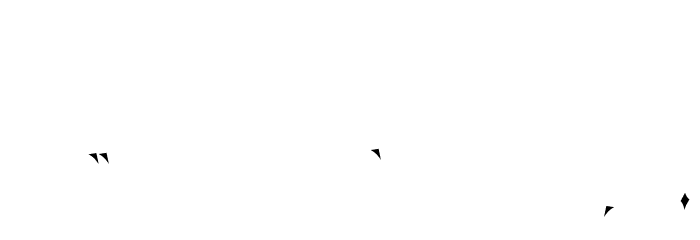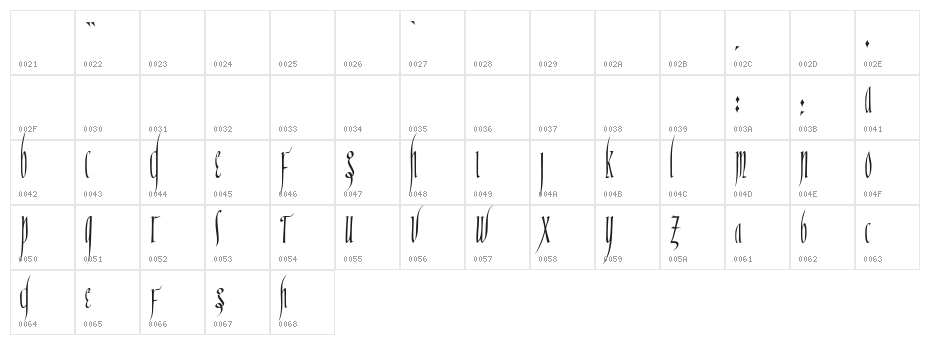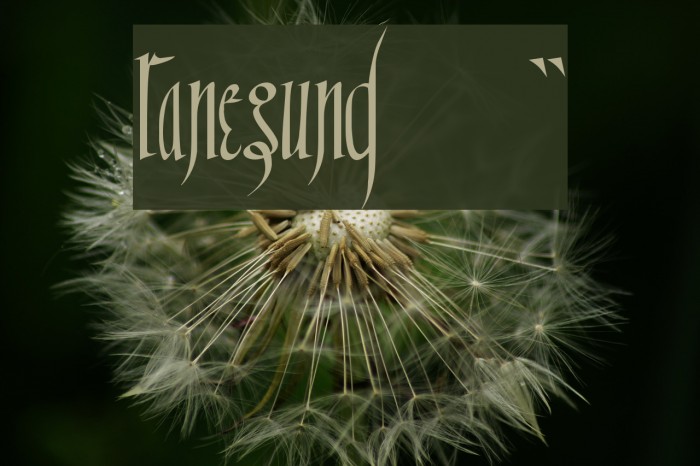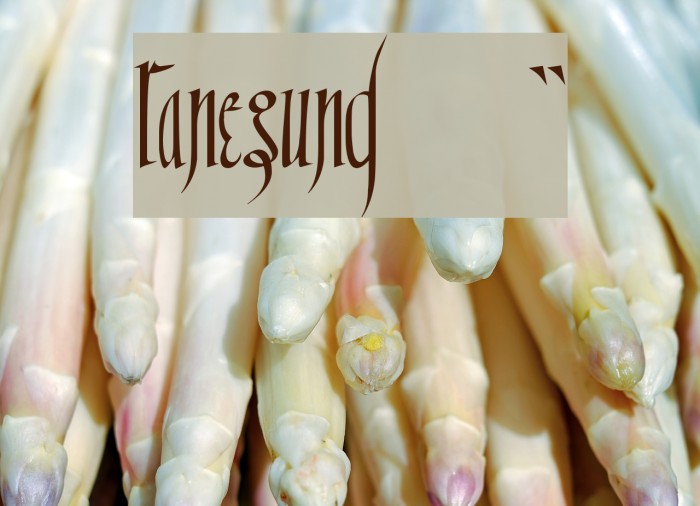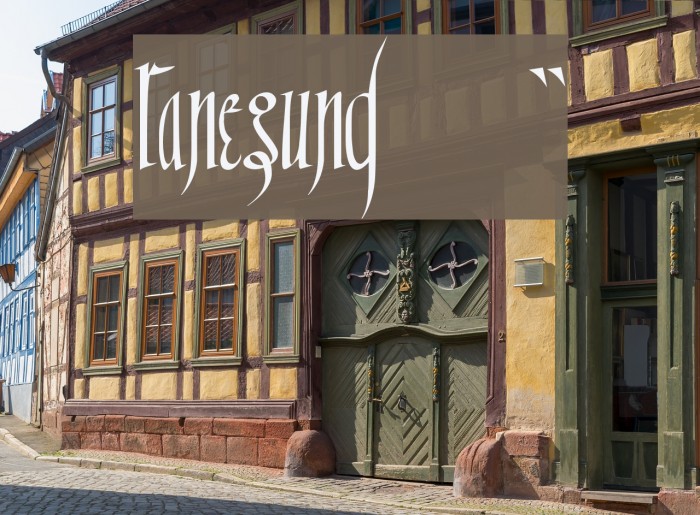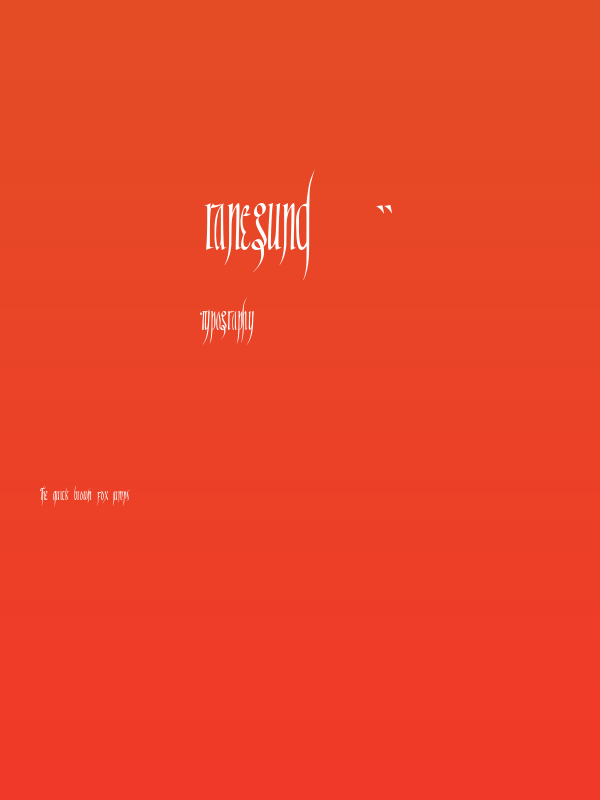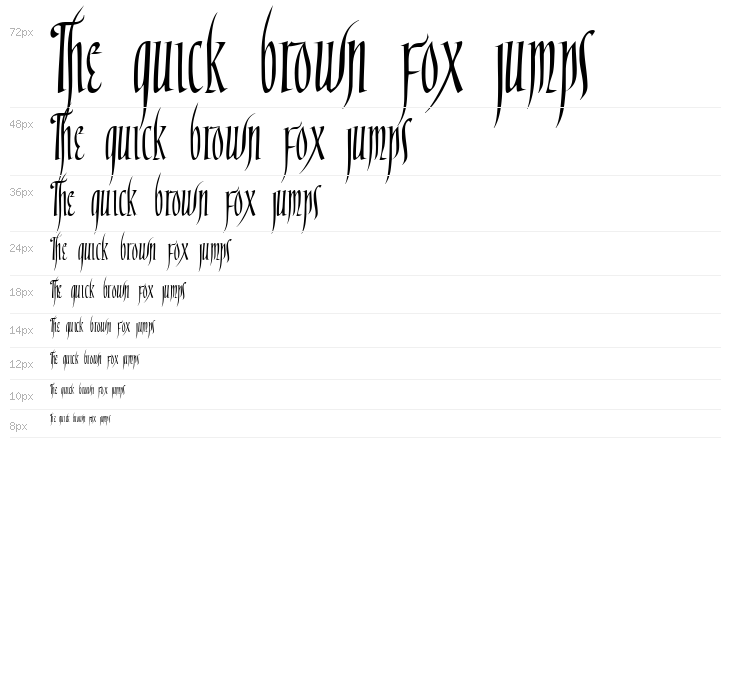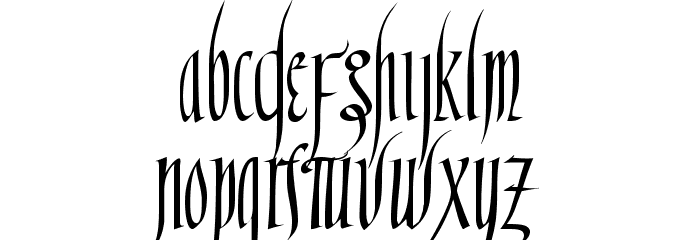
Ranegund!" Font
Ranegund!" Description
This font features a distinctive and artistic design, characterized by elongated and elegant strokes that create a sense of movement and fluidity. The letters are tall and narrow, with sharp, pointed serifs that add a dramatic flair. The uppercase and lowercase letters maintain a consistent style, with the lowercase letters mirroring the uppercase in their vertical emphasis. The numbers and special characters are crafted with the same attention to detail, ensuring a cohesive look across all elements. This font's unique style makes it stand out, offering a blend of traditional calligraphy and modern design elements.